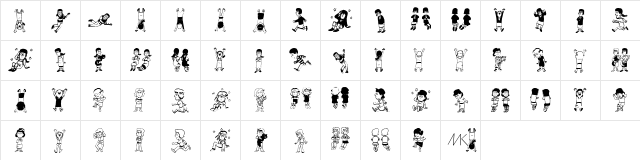
GirlsGirls Regular
Design Context for GirlsGirls Typeface
GirlsGirls is a composed and adaptable typeface that performs quietly and consistently across a wide range of design contexts.